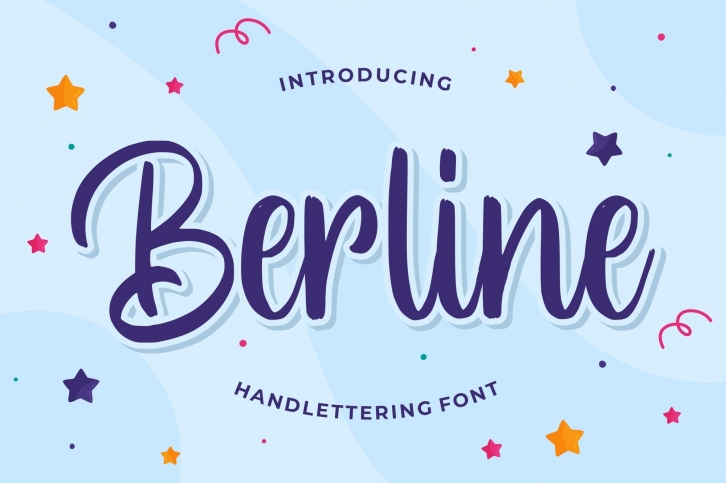
Berline is a great font that was designed by Good Java Studio. Imagine the amount of combinations you can create using this font! The archive is 15.88 MB and it was released on April 30, 2020. Berline looks beautiful on wedding invitations, greeting cards, logos, posters, labels, t-shirt designs, logos, business cards and is perfect for use in ink or watercolor works, fashion, magazines, packaging and food menus, children's books and more!